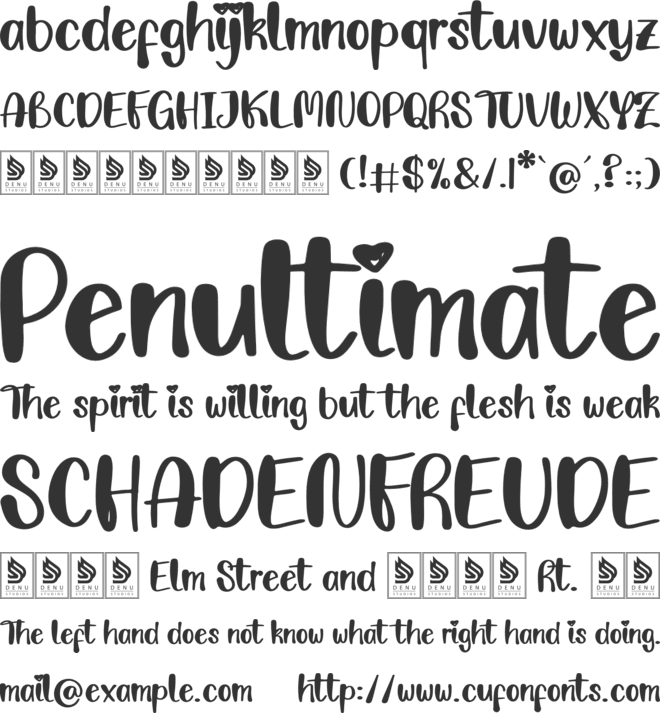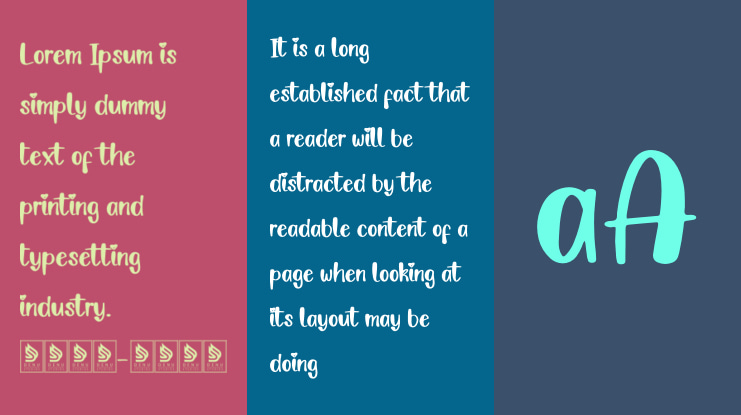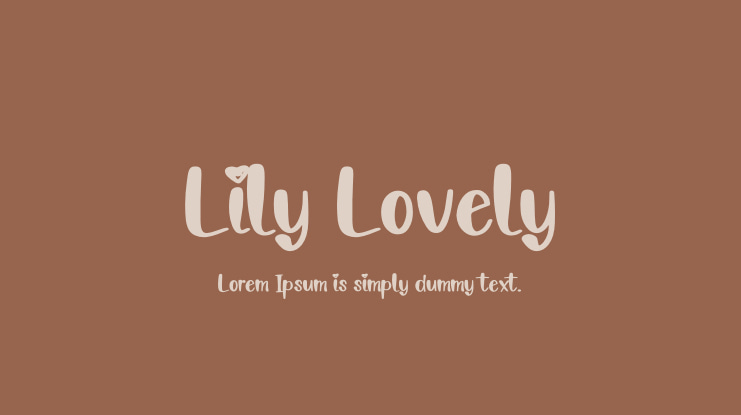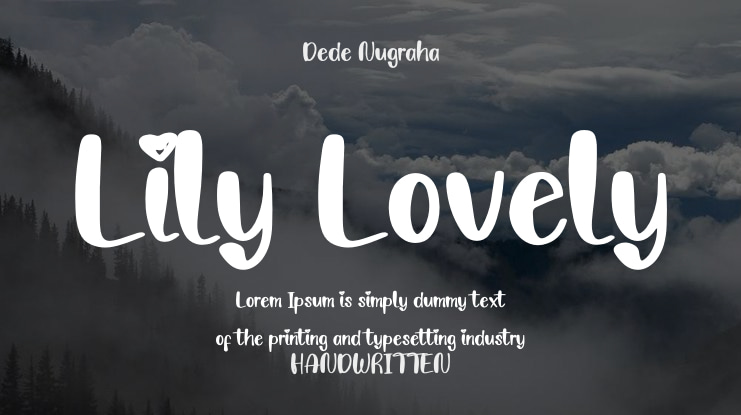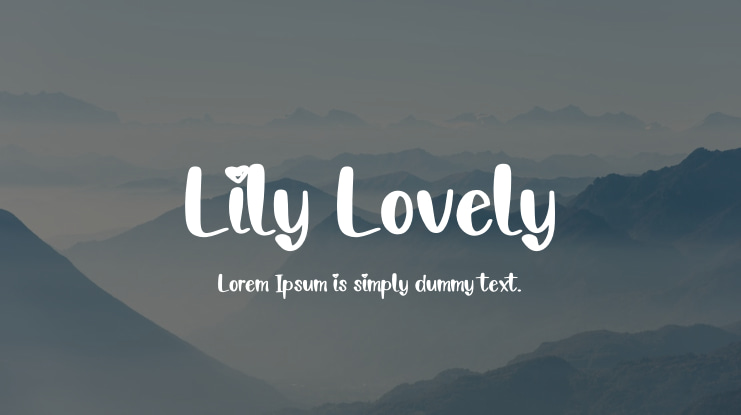
**Lily Lovely | Hand Drawn Font**
Lily Lovely is a hand-drawn font perfect for a variety of projects, such as: - Logos - Branding projects - Homeware designs - Product packaging - Mugs - Quotes - Posters - Shopping bags - T-shirts - Book covers - Name cards - Invitation and greeting cards - Labels - Photography watermarks - Special events - Any of your other lovely projects that require a hand-drawn font touch.